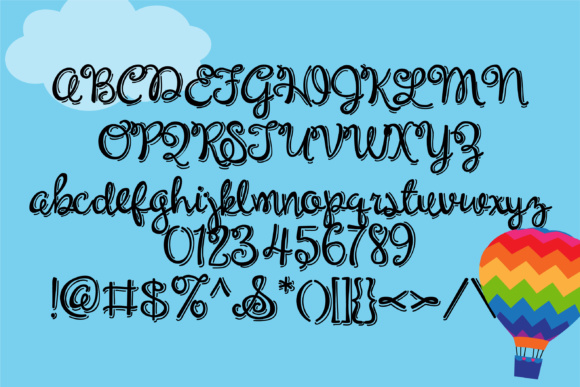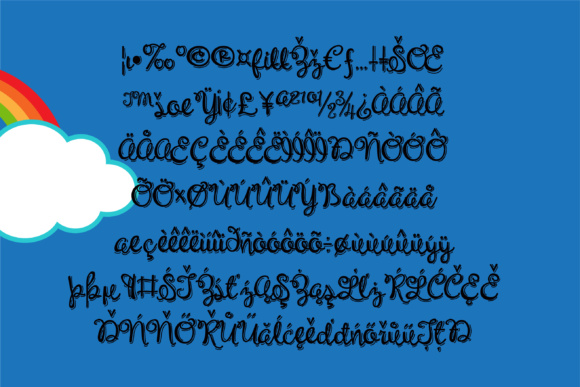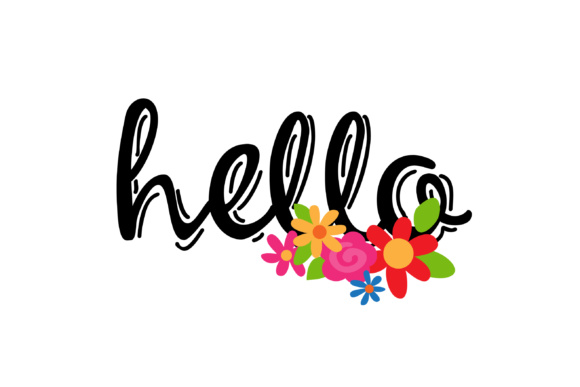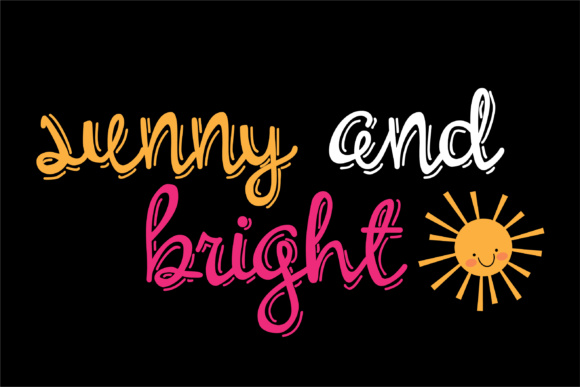
Unicorn Script Jitter Font
About Unicorn Script Jitter Font
Unicorn Script Jitter is a cute, hand-written script which has outlines in a typical “chalkboard style”, giving the font a bit of a jitter vibe.